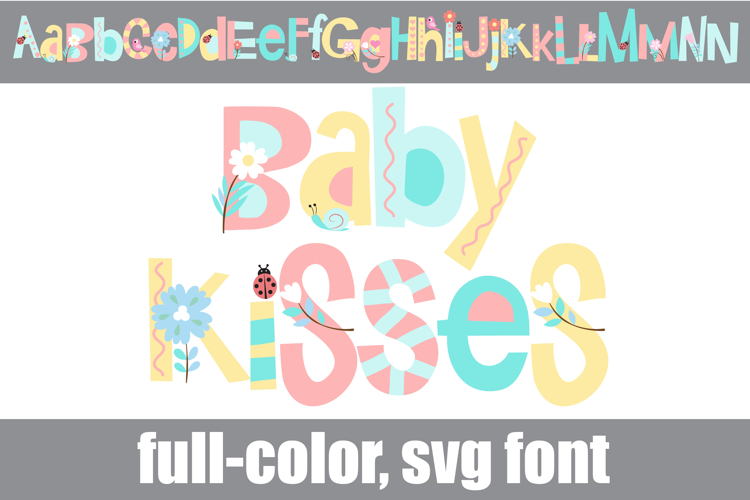
Baby Kisses Color Font
This full-color, pastel-colored font features florals and bugs. There is an alt case of each letter with a different color combination.